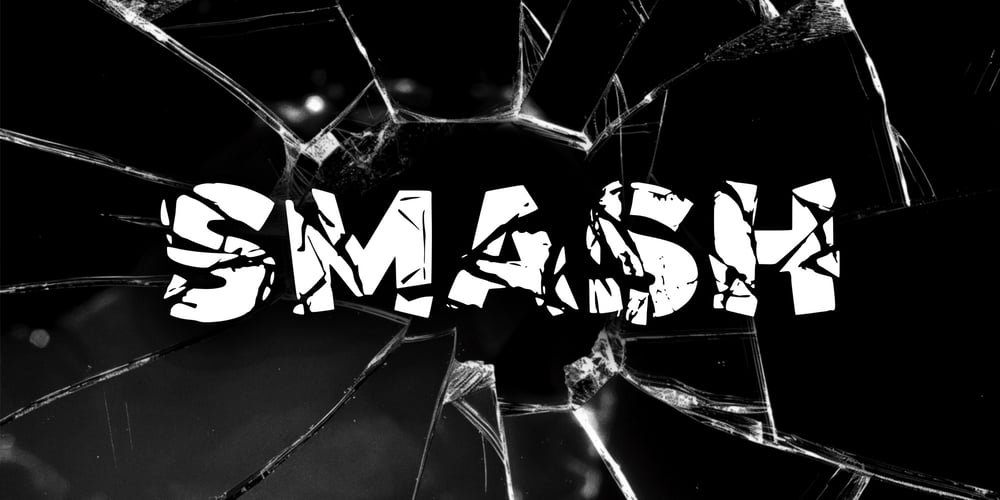
Smash and Crash
Smash and Crash font
Smash and Crash Font Family was designed by Ioanna Ladopoulou and published by Joanna Vu. Smash and Crash contains 1 styles and family package options. Smash and Crash is a decorative font, designed to resemble broken letters. If you are looking for a “smashing” font, Smash and Crash is certain to make an impact! As a highly decorative font, it is ideal for titles, headlines, logos, anything that need a “cracking” touch. However, it is legible enough to be used for longer text as well.Smash and Crash supports most latin-derived languages and Greek.